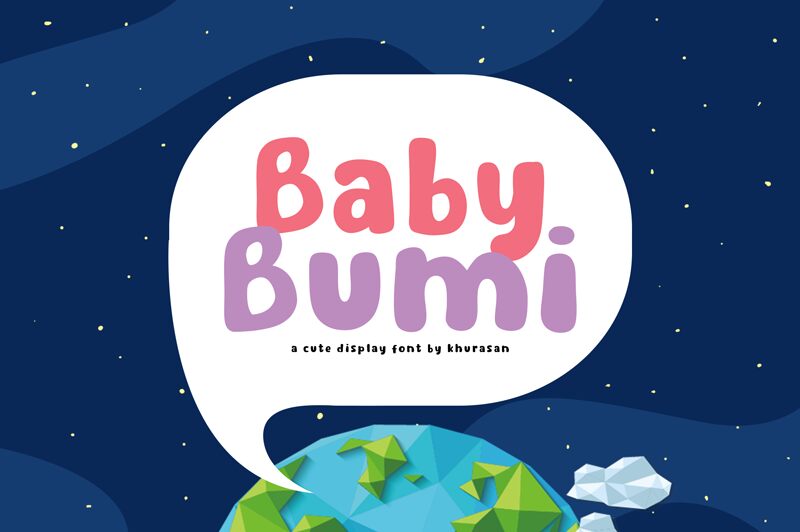
Baby Bumi
Baby Bumi, designed by Khurasan, is a modern and cute bold display font that brings a touch of whimsy to any project.
With its playful cartoon style, this font is ideal for creating eye-catching designs that capture attention. Whether you're designing posters, logos, magazines, book covers, banners, or anything in between, Baby Bumi adds a delightful flair to your work. Its bold weight ensures that your message stands out and grabs the viewer's attention. So why wait? Add Baby Bumi to your creative arsenal and watch as it transforms your ideas into captivating visuals that leave a lasting impression.